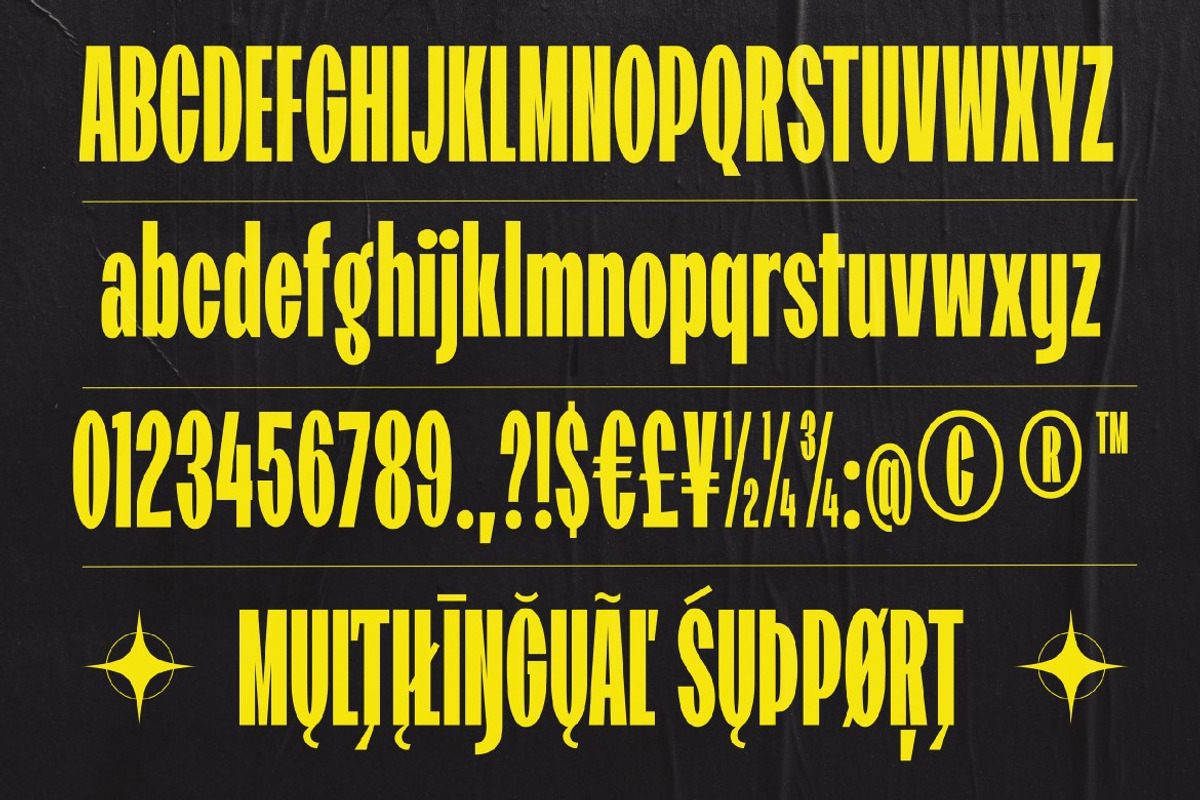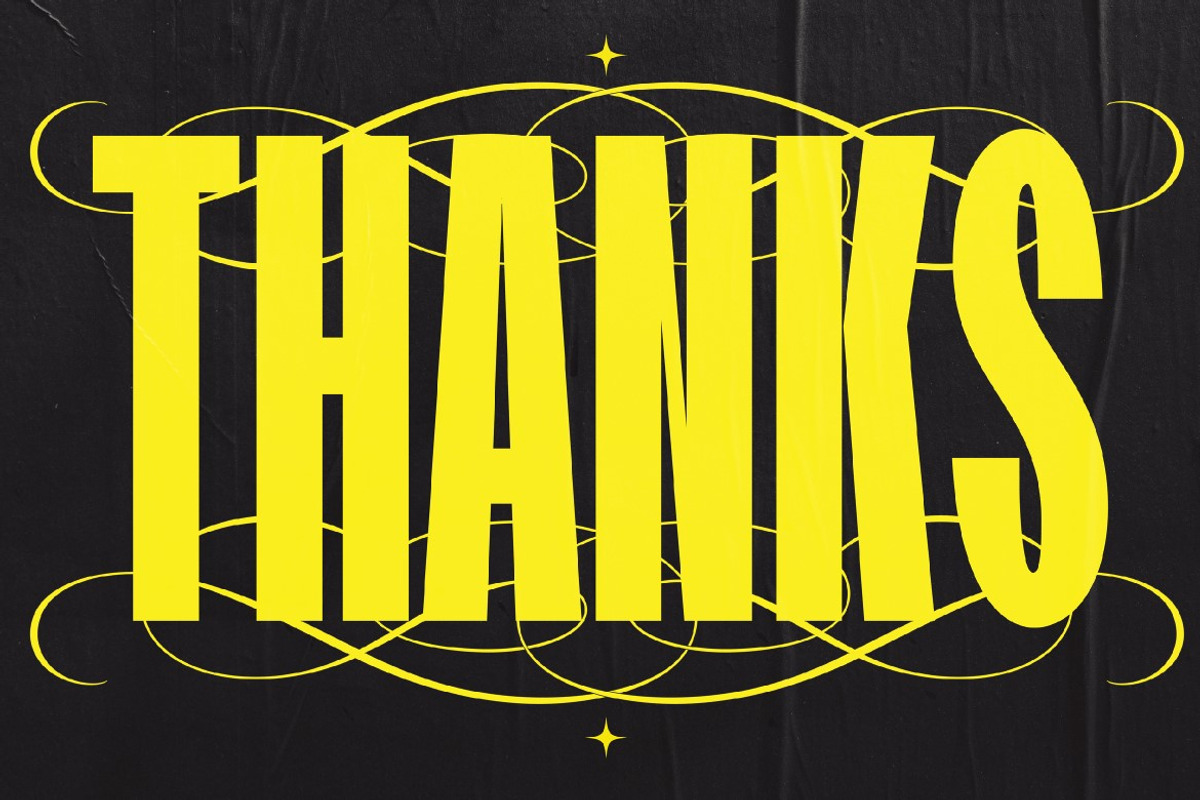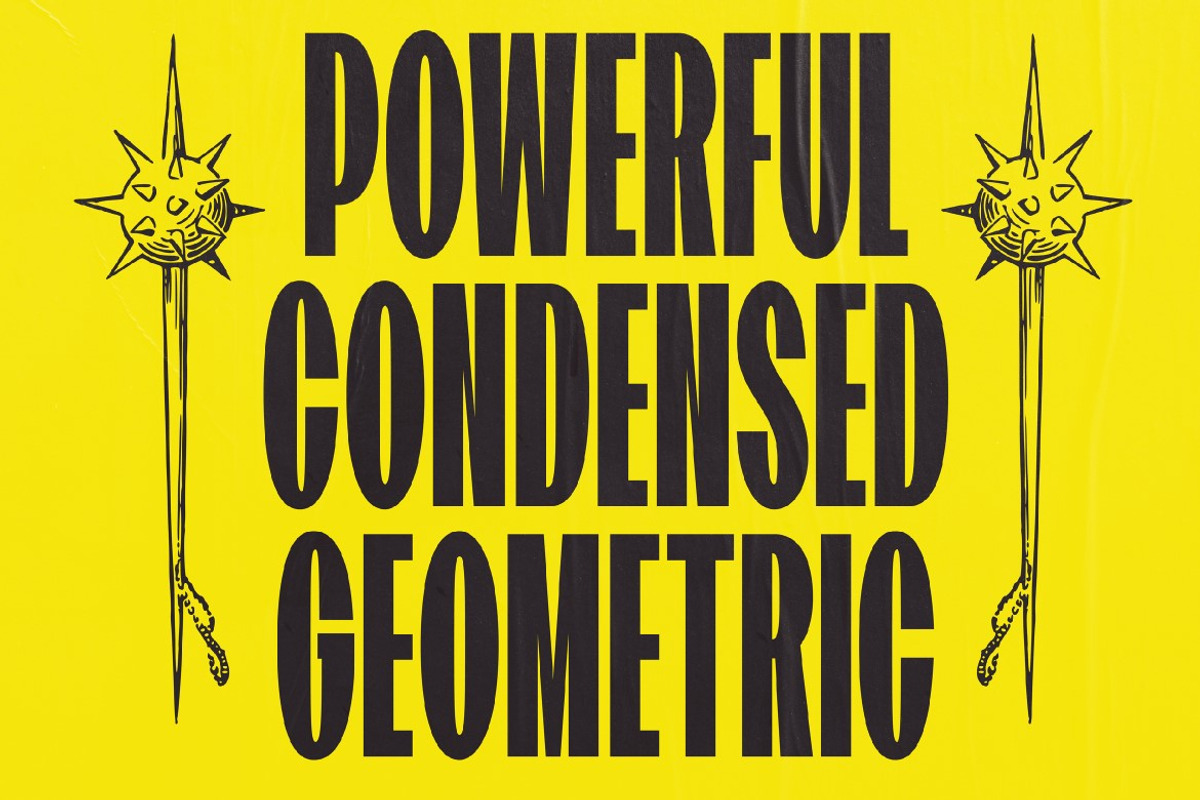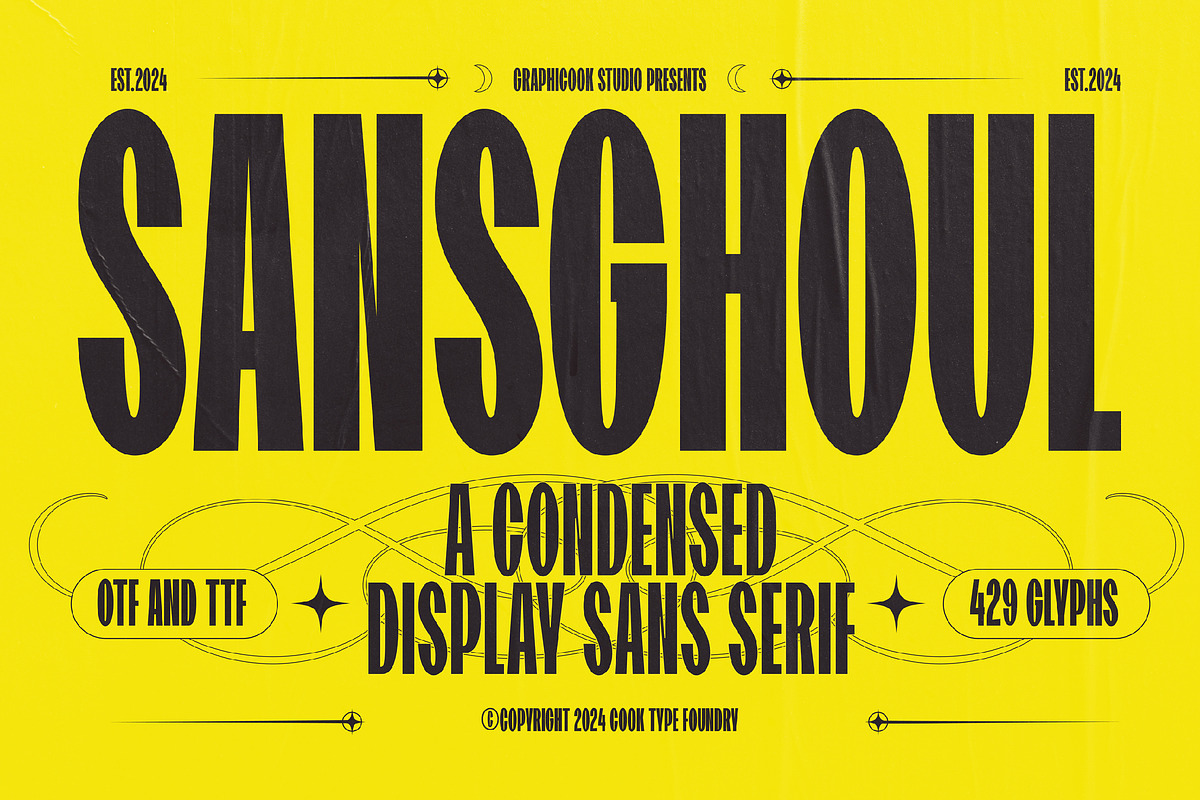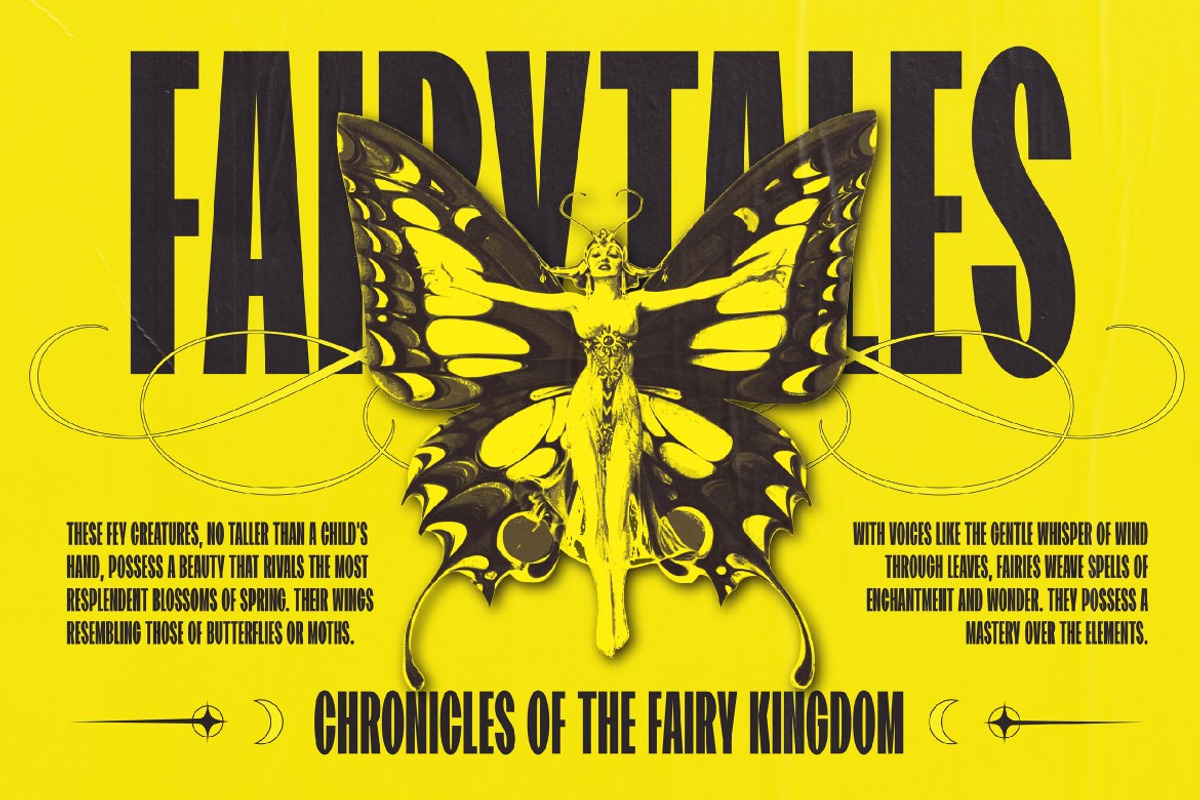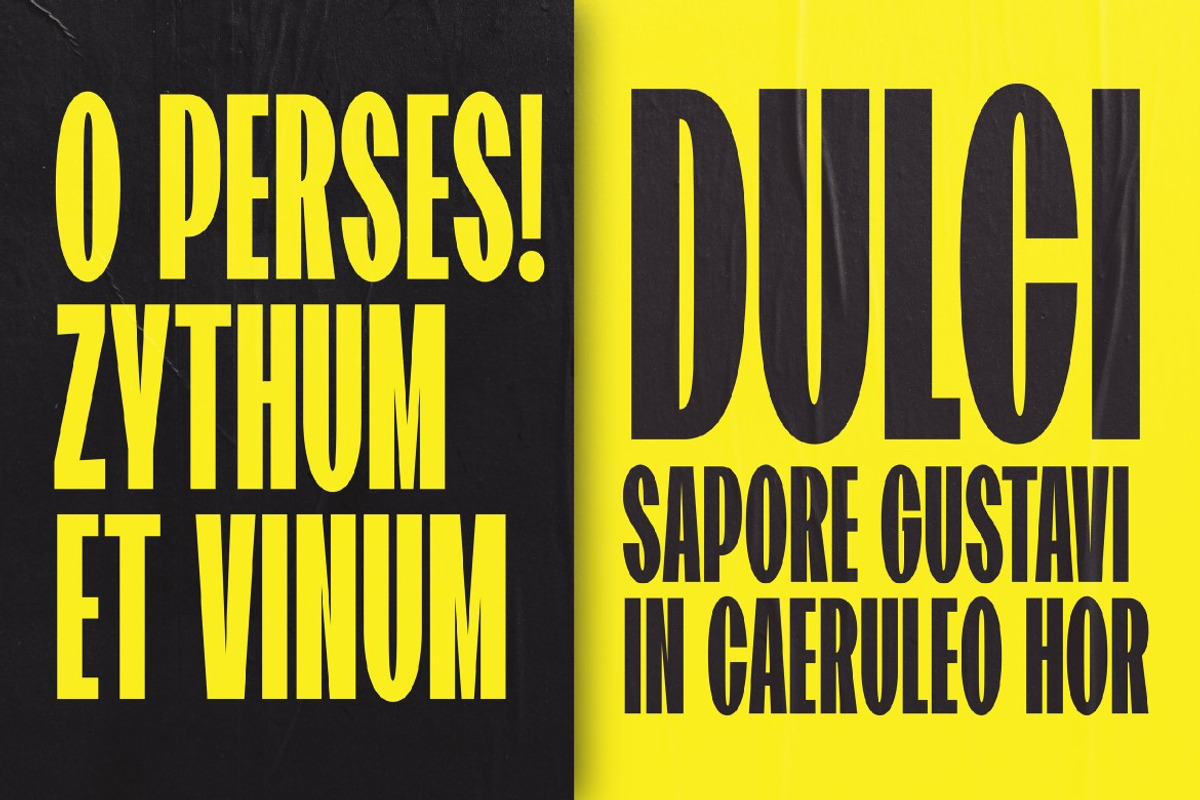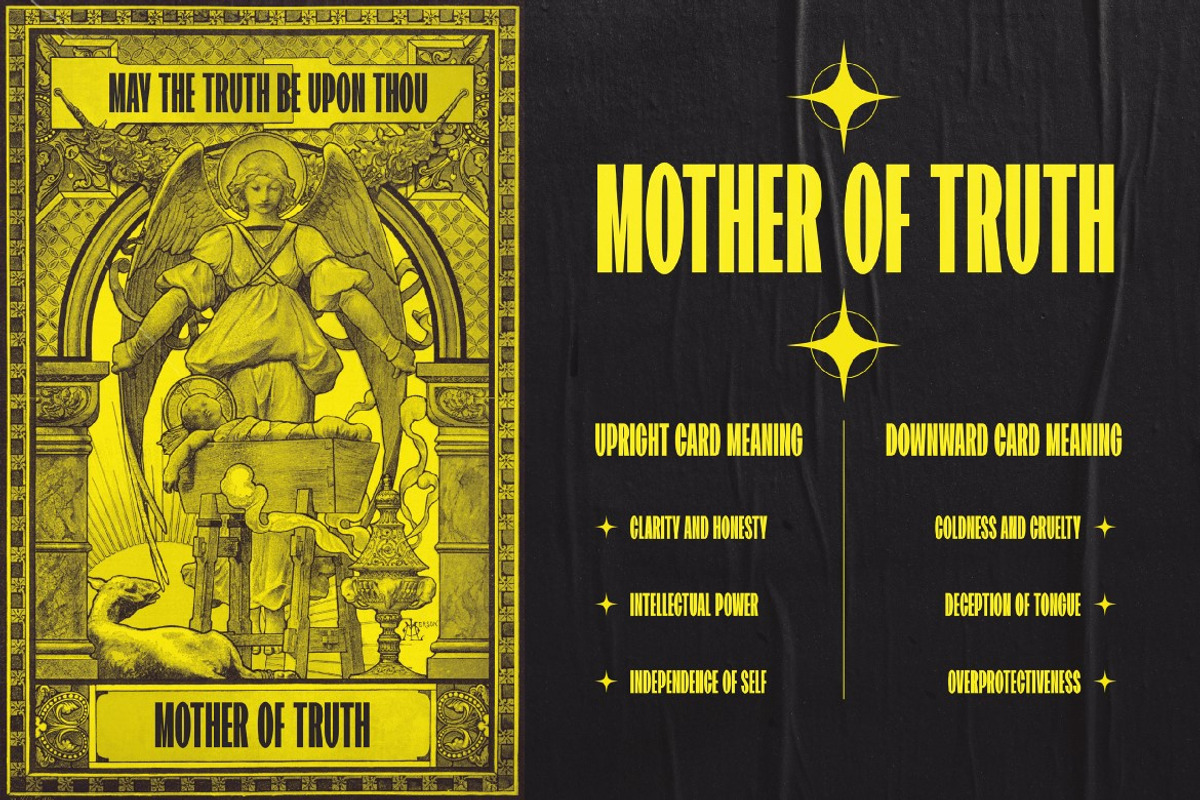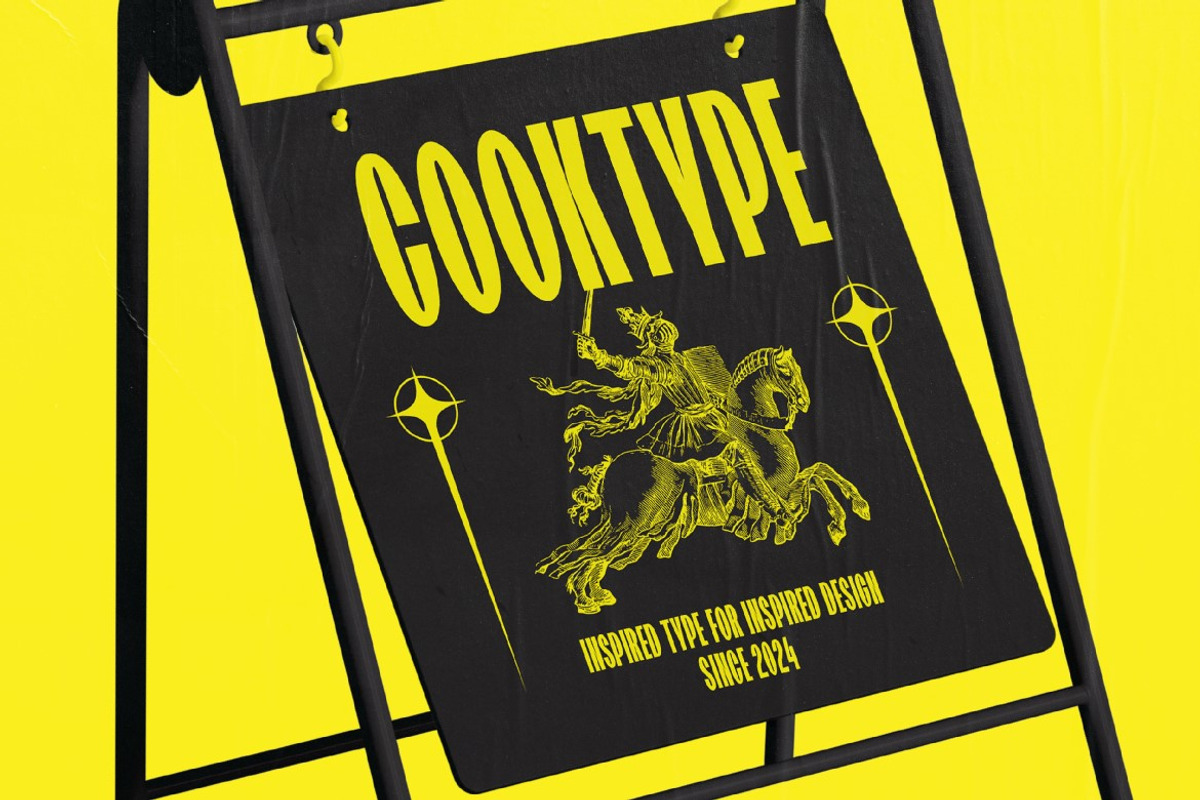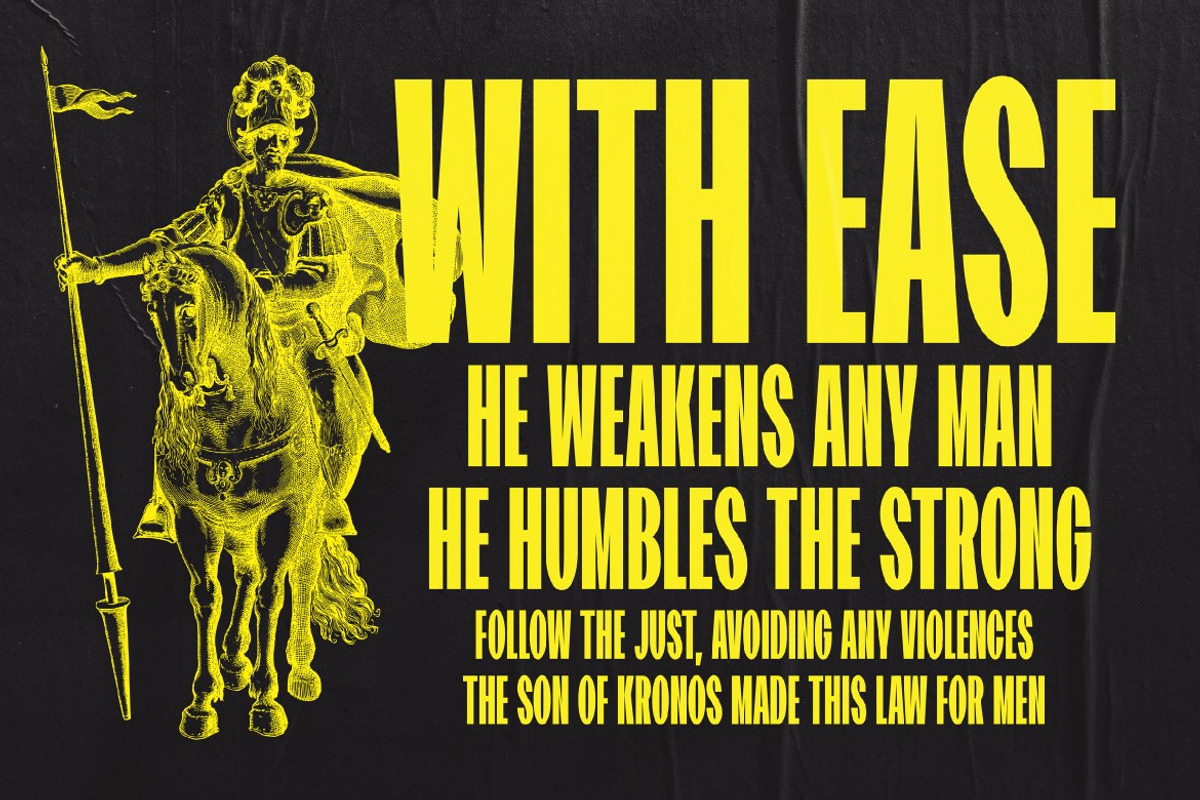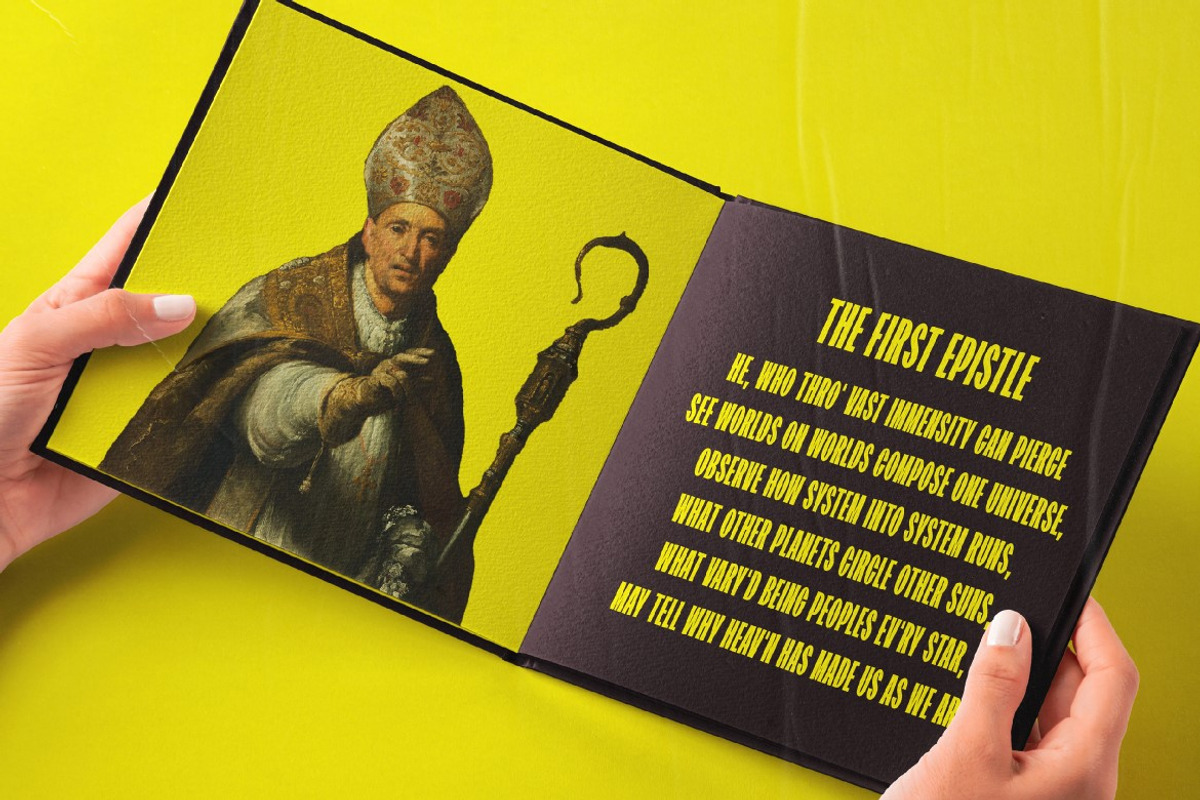
Sansghoul
Sansghoul is inspired by historical gothic styles, making it ideal for headlines, packaging, or branding projects with an exclusive gothic feel. "Sans" and "Ghoul" suggest a font that merges the simplicity of sans-serif with gothic and haunting imagery.
Sansghoul is perfect for headlines, logotypes, magazines, packaging, quotes, movies, games, cover albums, book covers, and flyers, it's a perfect solution for creating eye-catching designs that stand out in any context.